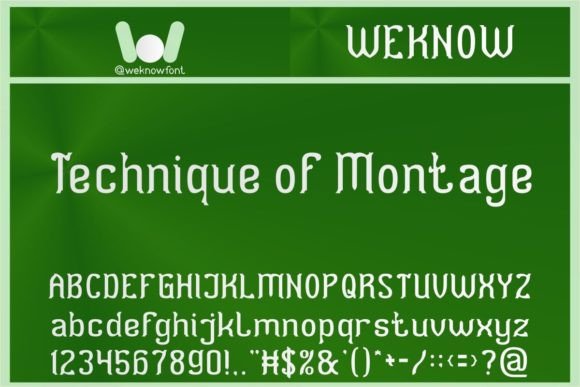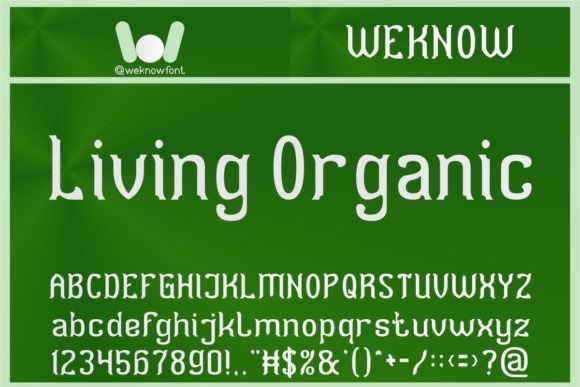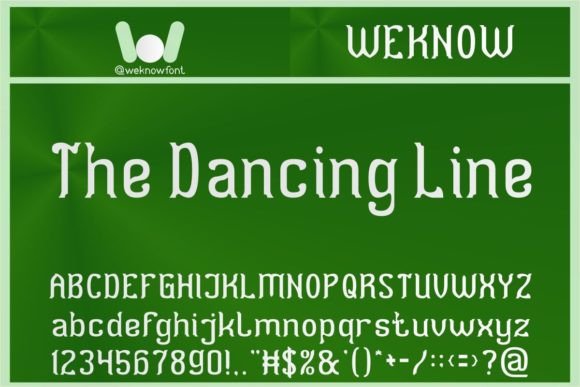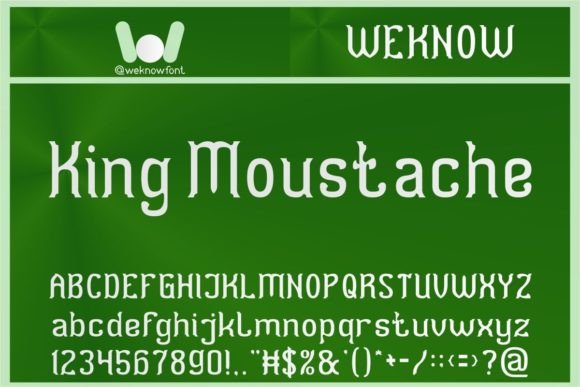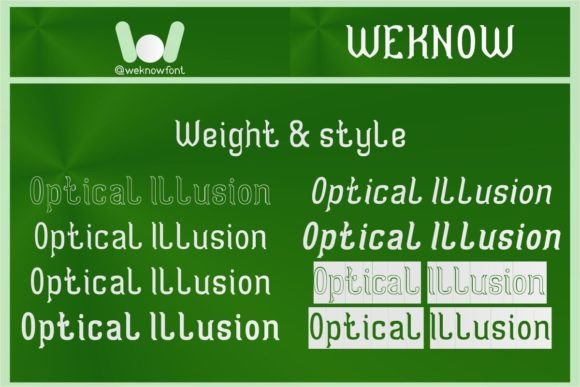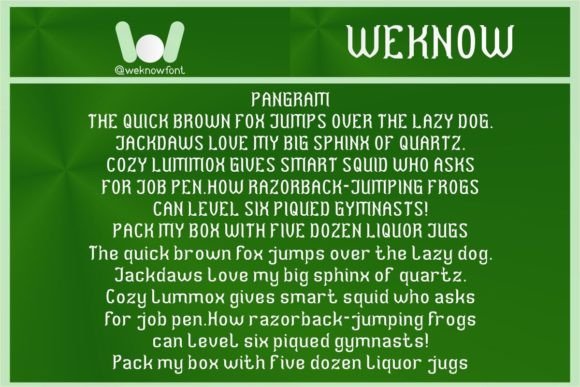
Introduction to Optical Illusion Font
Step into the world of visual wonder with Optical Illusion: an assuredly striking, various serif display font.
As the name suggests, this font offers a mesmerizing dance between creative typography and visual artistry Its sharp, stylish characters excel in imprinting un-ignorable impressions whether itโs on a logo, logotype, or captivating headline.
Key Features of Optical Illusion Font